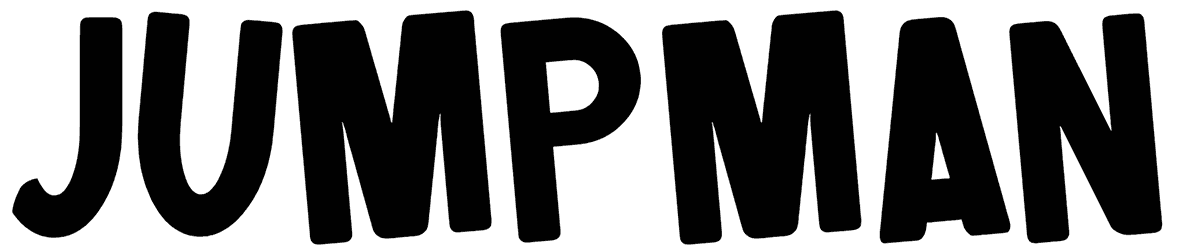
Jumpman Font
Jampman is a fun and lively circus font that offers a modern take on serious and powerful sans serif fonts. This fancy font can bring you a wide range of customization and personal design options. Because it pairs well with different effects and backgrounds.
So, it doesn’t matter if you are performing a promotional poster for a comedy film or street theater, or want to publish a social post. In any case, this font, without small letters, can meet your needs.
A simple deco font based on the logo of the original Donkey Kong game from Nintendo Entertainment. Includes full alphabet, extended punctuation, Euro.